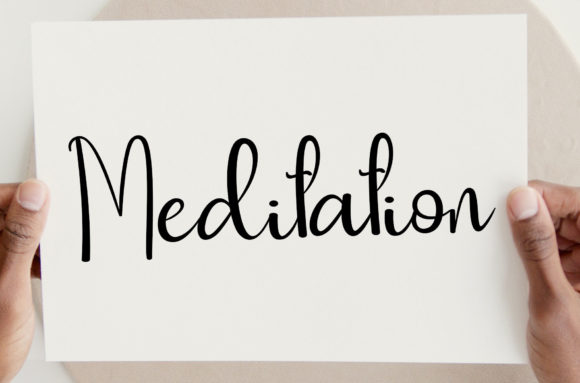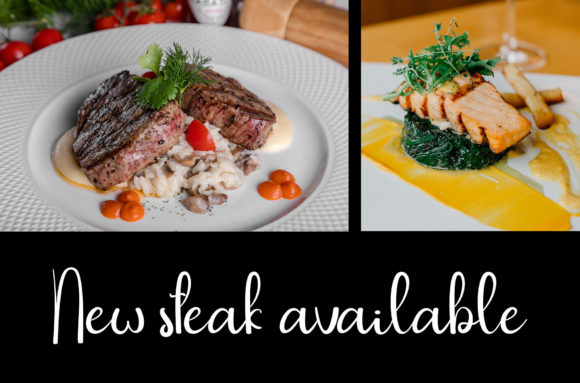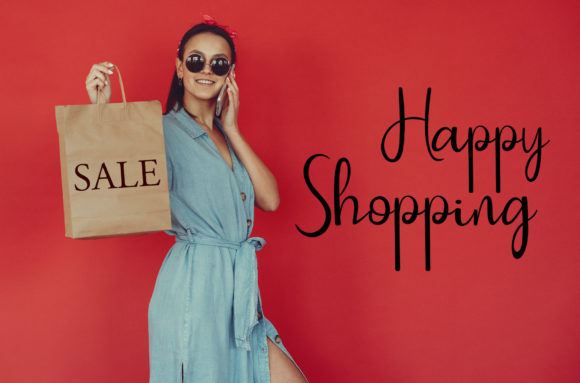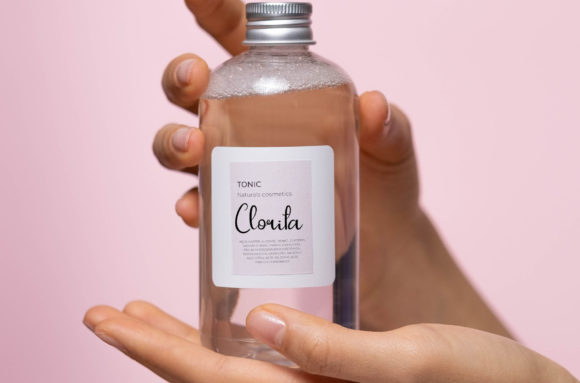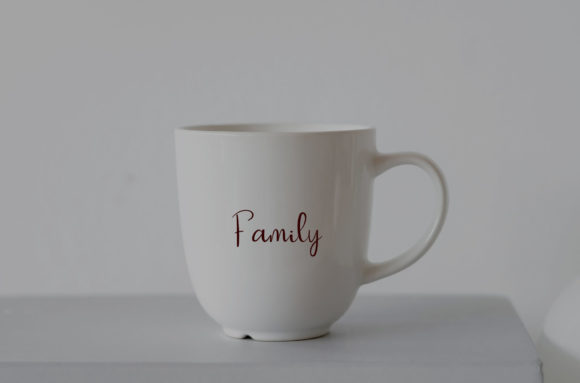
Meditation Font
About Meditation Font
Meditation font, with its exquisite script font, emerges as a stunning choice for designers seeking to infuse their projects with a romantic and sweet nuance. This versatile typeface transcends the ordinary, offering a captivating charm that enhances the aesthetic appeal of any design endeavor.
At the heart of Meditation font lies its captivating script design, characterized by graceful strokes and delicate flourishes. Each letter exudes an air of elegance and sophistication, creating a visually pleasing arrangement that captivates the eye. Whether used for greeting cards, gifts, room decorations, or product advertising promos, this font adds a touch of charm to projects of all sizes.
What sets Meditation font apart is its ability to evoke emotion and sentimentality through its design. The romantic and sweet nuance embedded within each stroke lends an intimate and affectionate feel to the text, making it perfect for conveying heartfelt messages or expressing love and gratitude.
Moreover, Meditation font offers unparalleled versatility in its application. Whether utilized in large headlines or small captions, it retains its beauty and legibility, ensuring that your message is effectively communicated to your audience. Its seamless integration into various design contexts makes it a valuable asset for designers looking to refine their project ideas with elegance and style.
Furthermore, Meditation font serves as a source of inspiration for creativity and innovation. Its gorgeous appearance stimulates the imagination, encouraging designers to explore new concepts and push the boundaries of their creativity. With this font at your disposal, refining your project ideas becomes a delightful and rewarding experience.
In addition to its aesthetic appeal, Meditation font is designed for practicality and ease of use. Its flawless execution ensures smooth rendering across different platforms and applications, while its accessibility enables designers to customize and personalize their designs with ease.
In summary, Meditation font is more than just a typeface – it’s a reflection of beauty, romance, and creativity. With its exquisite script design, versatile application, and inspiring charm, it serves as a valuable tool for designers seeking to elevate their projects to new heights of elegance and sophistication. Let Meditation font be the muse for your next design endeavor, and experience the transformative power it brings to your creations.